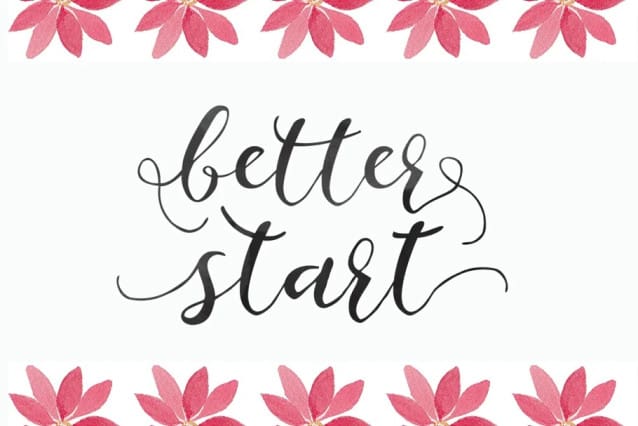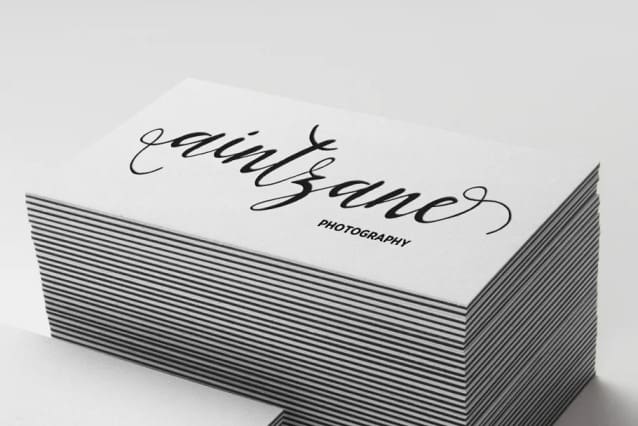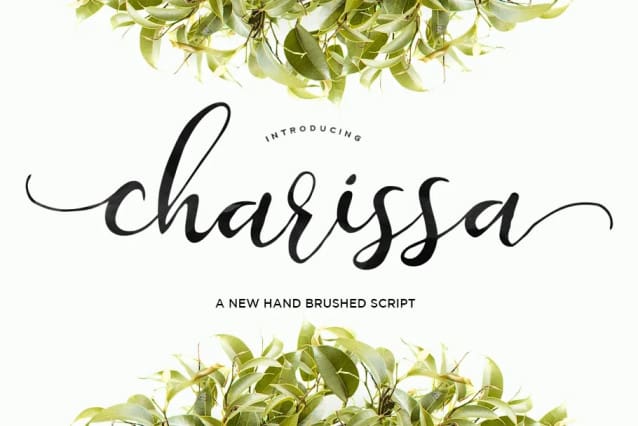
Charissa Font
Charissa Font is a new hand brushed font , elegant, organic fun with dancing baseline. Different alternates and swashes to the beginning and ends of all lowercase.
Features 307+ glyphs and 130+ alternate characters. Opentype features with ligatures, stylistic sets and International support for most Western Languages is included. This fonts can be used for various purposes.such as headings, signage, signature, t-shirt, letterhead, wedding invitation, logos, news, posters, lable, badges etc.